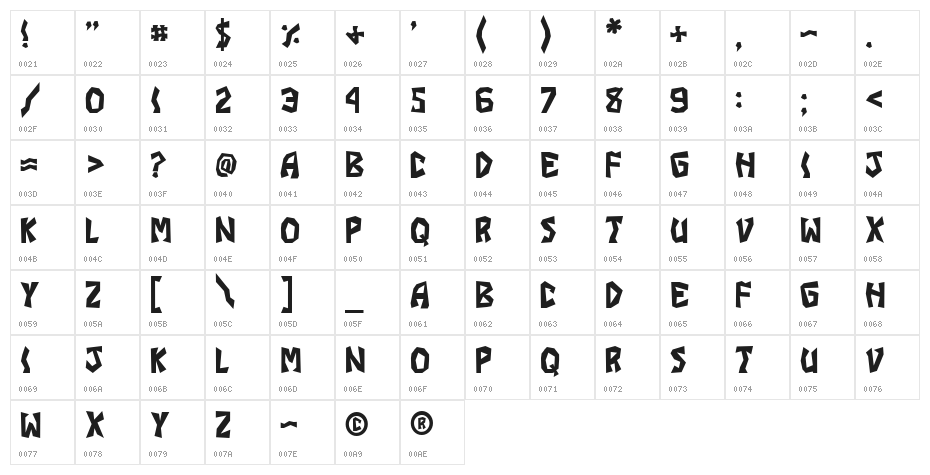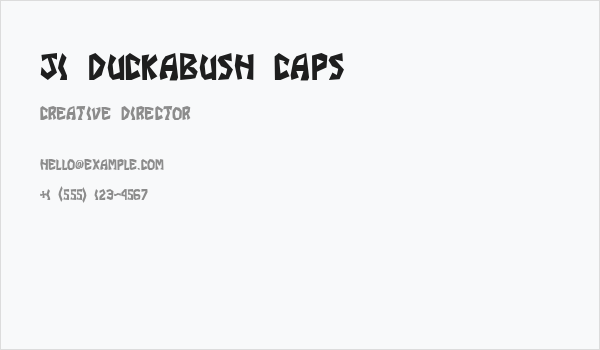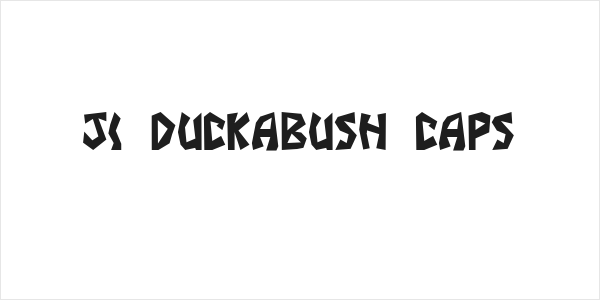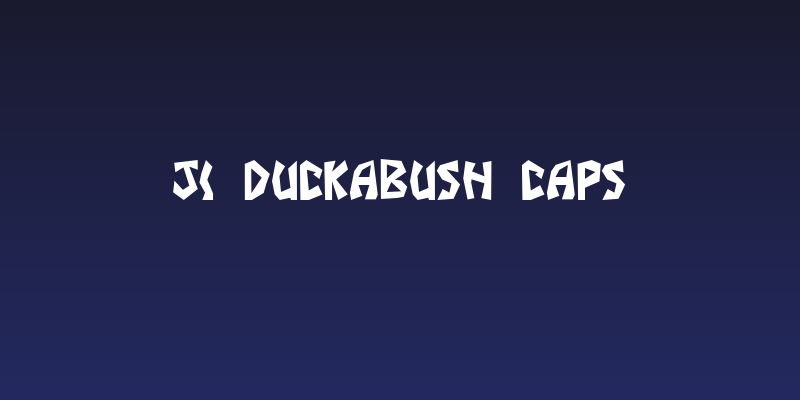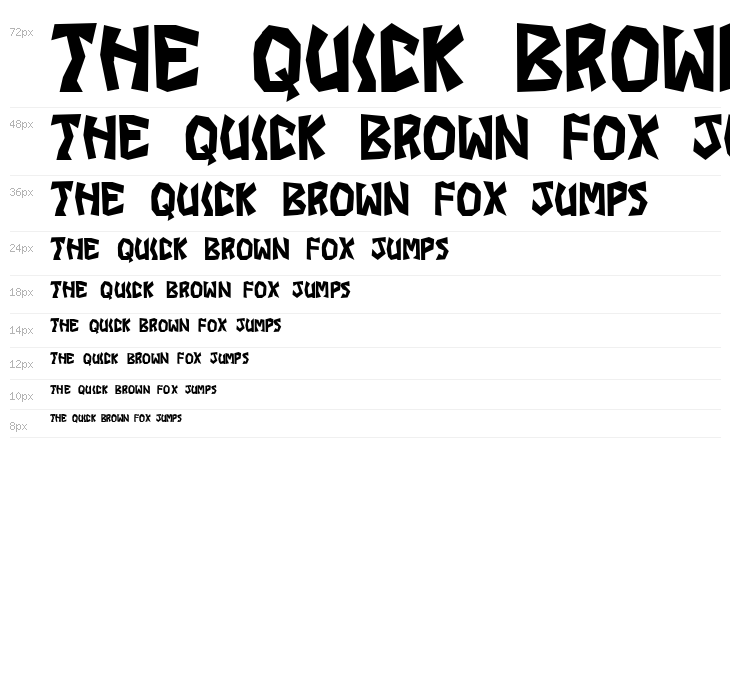
JI Duckabush Caps Font
JI Duckabush Caps Description
This font features a bold and angular design, characterized by sharp, jagged edges and a dynamic, energetic appearance. The letters are uppercase and maintain a consistent height, with a slightly condensed width that gives them a compact look. The numbers and special characters follow the same angular style, ensuring uniformity across the font. The overall aesthetic is reminiscent of graffiti or street art, making it ideal for projects that require a bold, eye-catching typeface. The high contrast between the thick and thin strokes adds to its striking visual impact.
| Overall Style | Modern, Urban |
| Proposed Projects | Ideal for posters, album covers, streetwear branding, and urban-themed designs. |